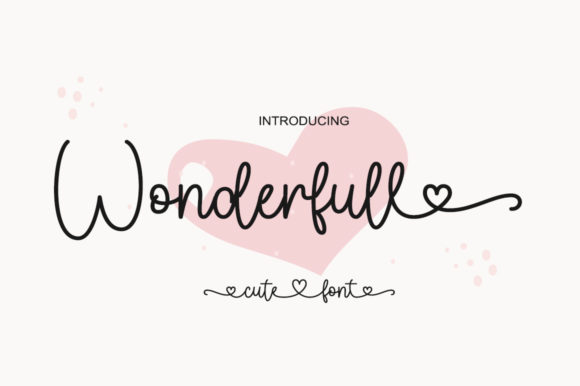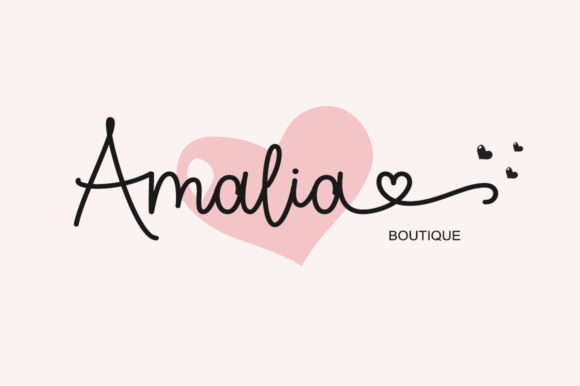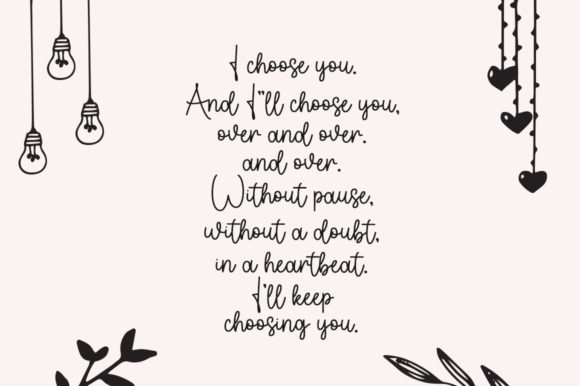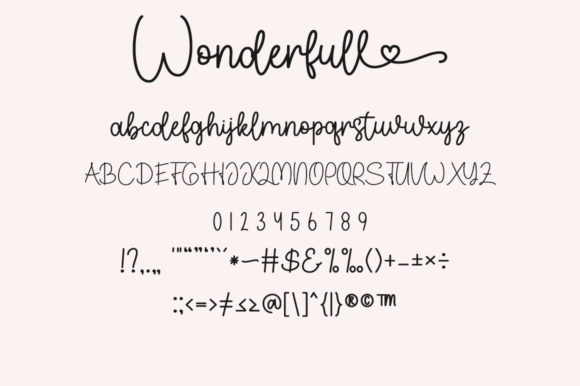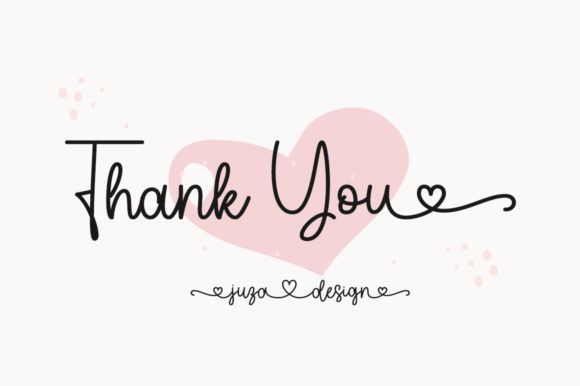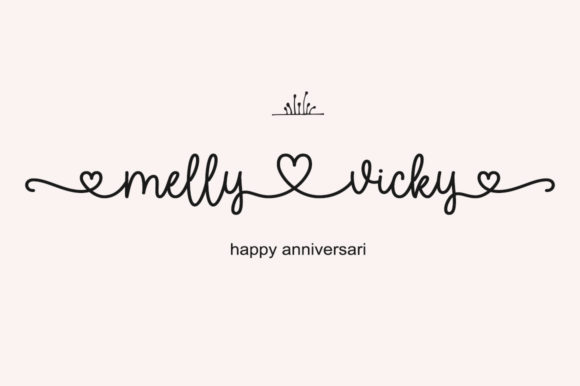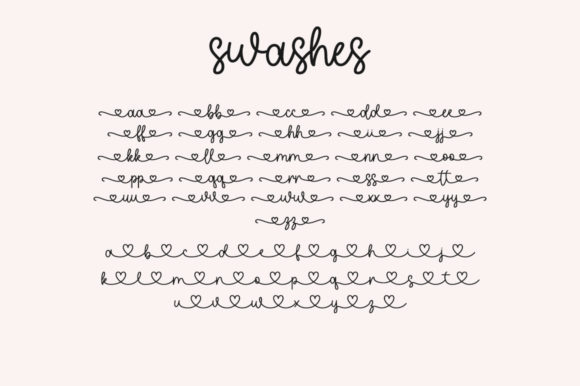
Wonderfull Font
About Wonderfull Font
Wonderfull is a lovely and delicate script font that exudes elegance and class. It will add a luxury spark to any design project that you wish to create! This font is PUA encoded which means you can access all of the amazing glyphs and ligatures with ease!